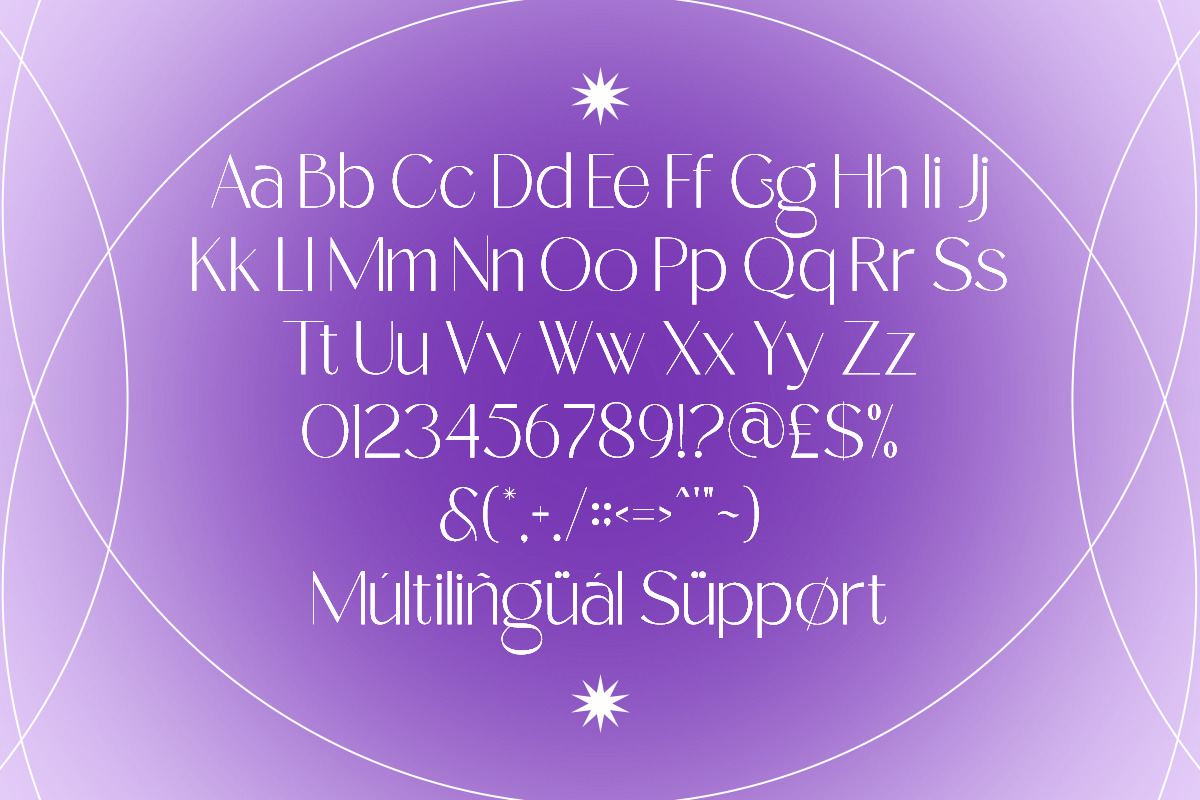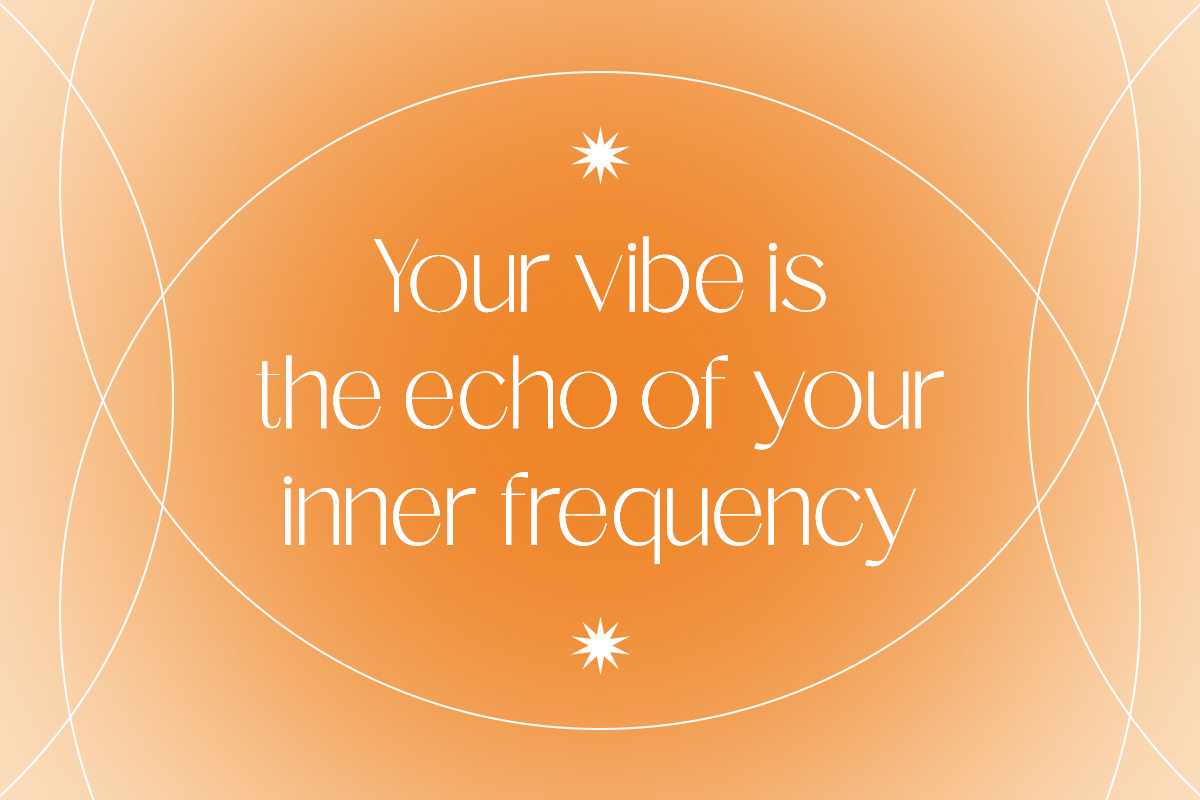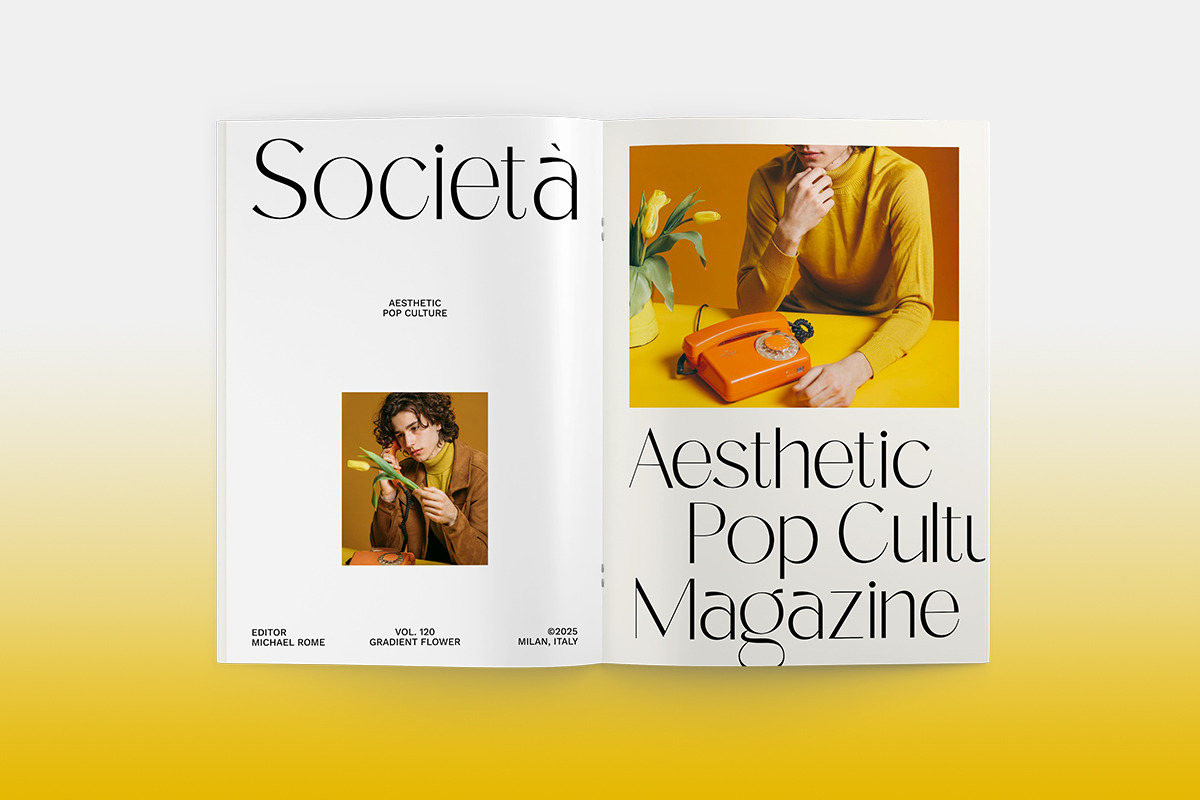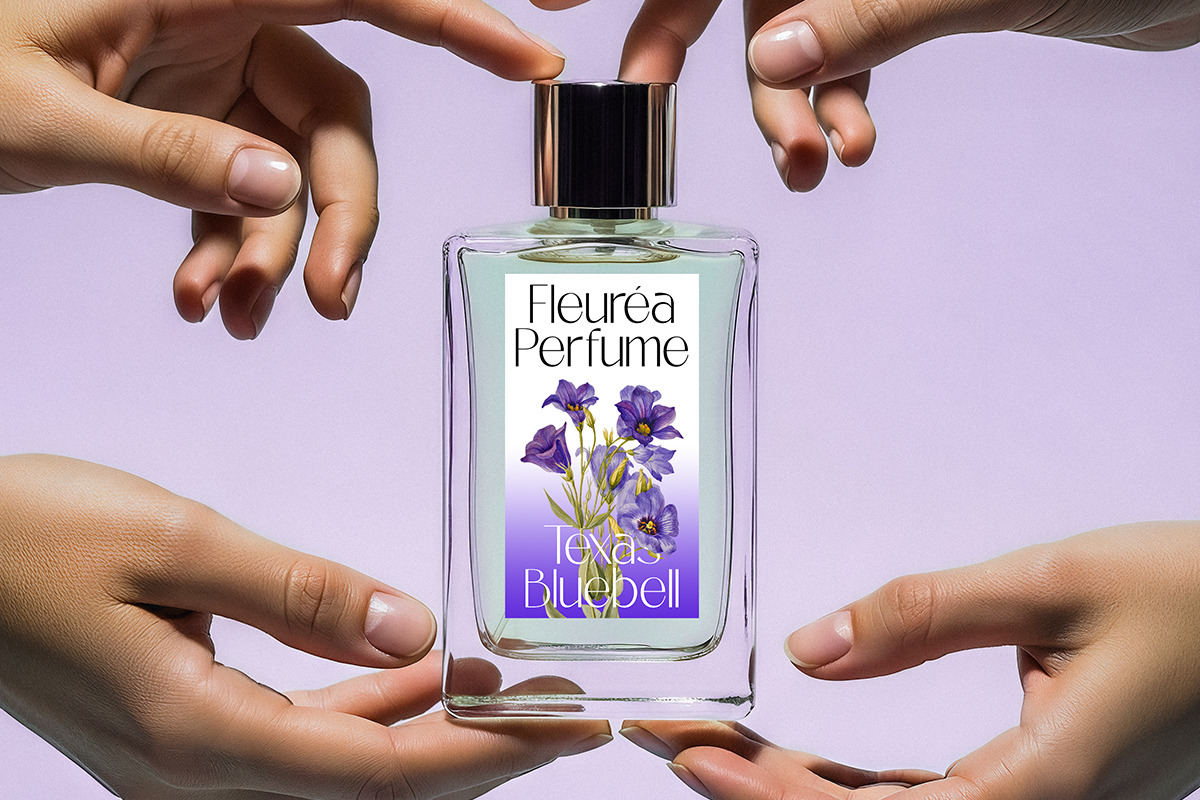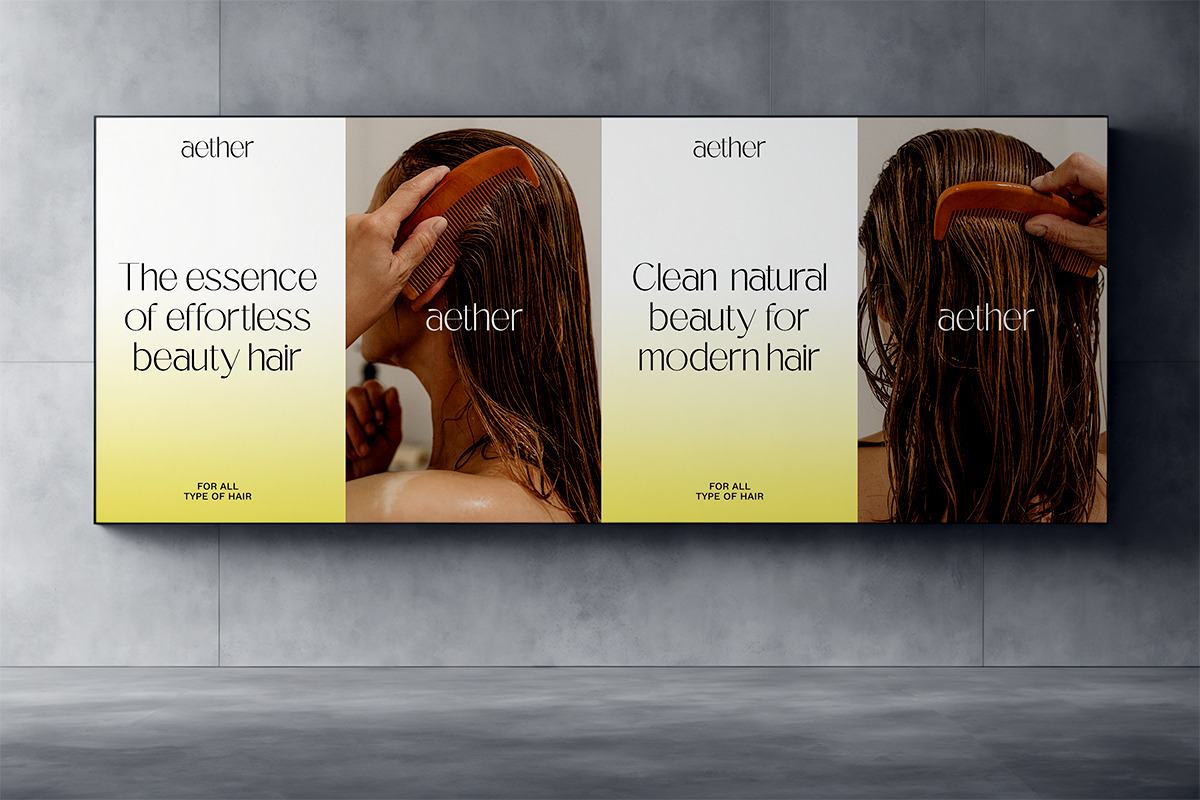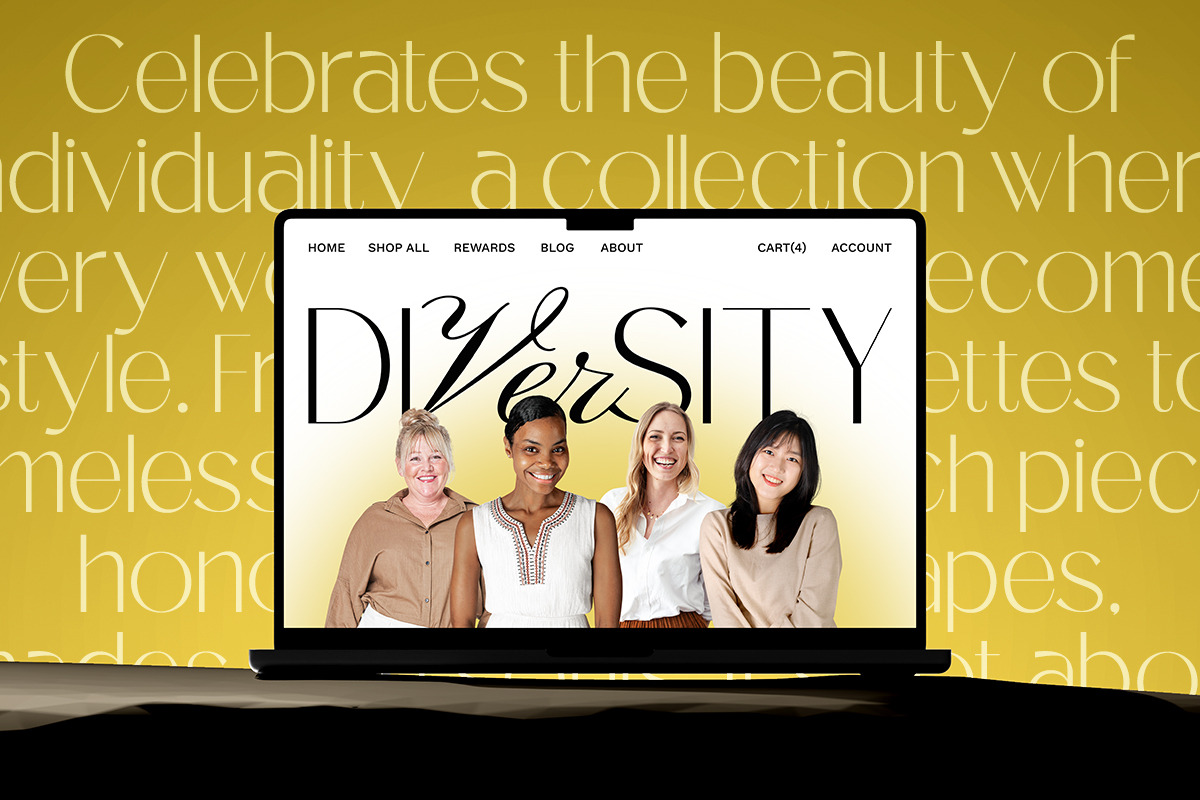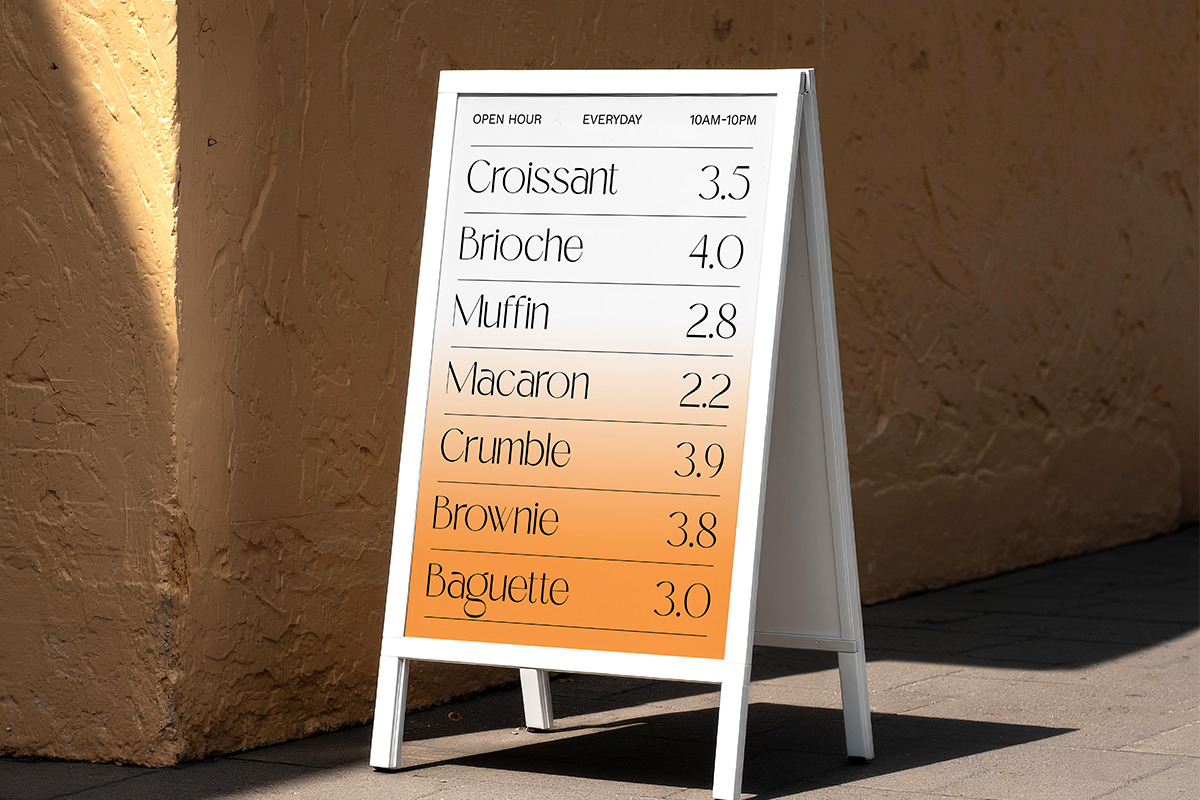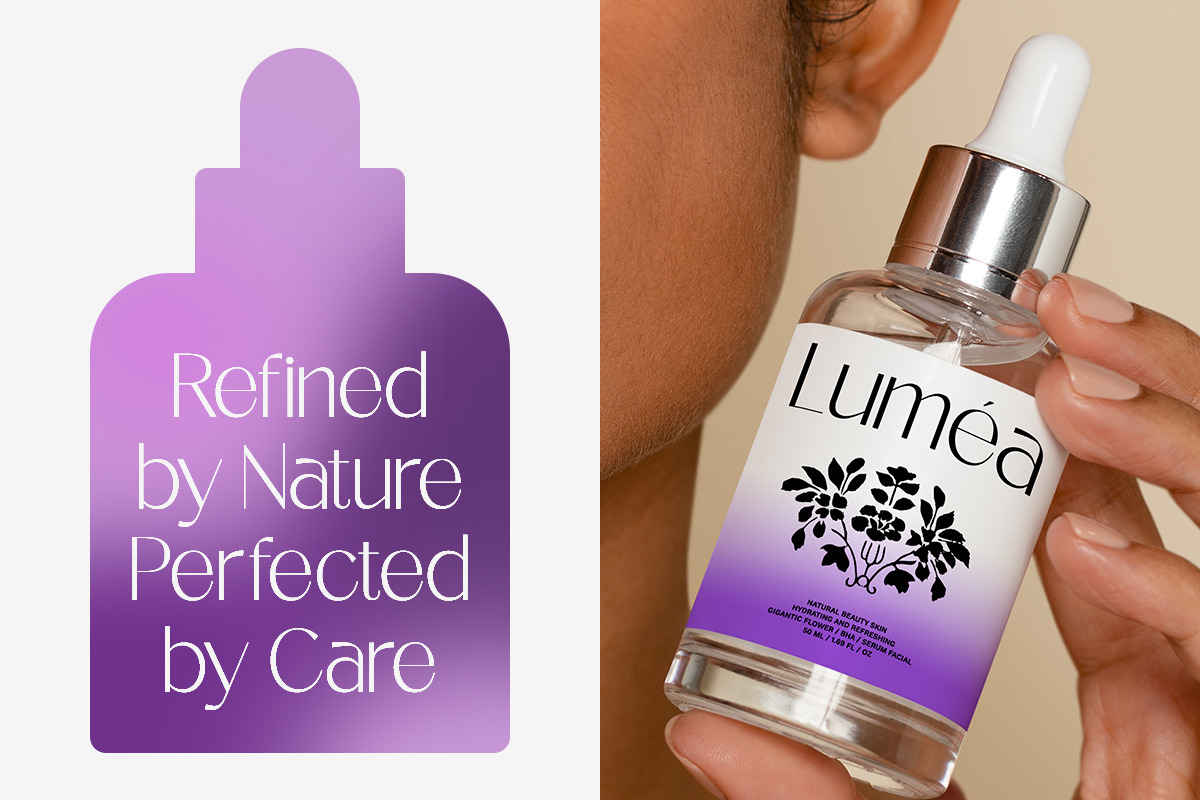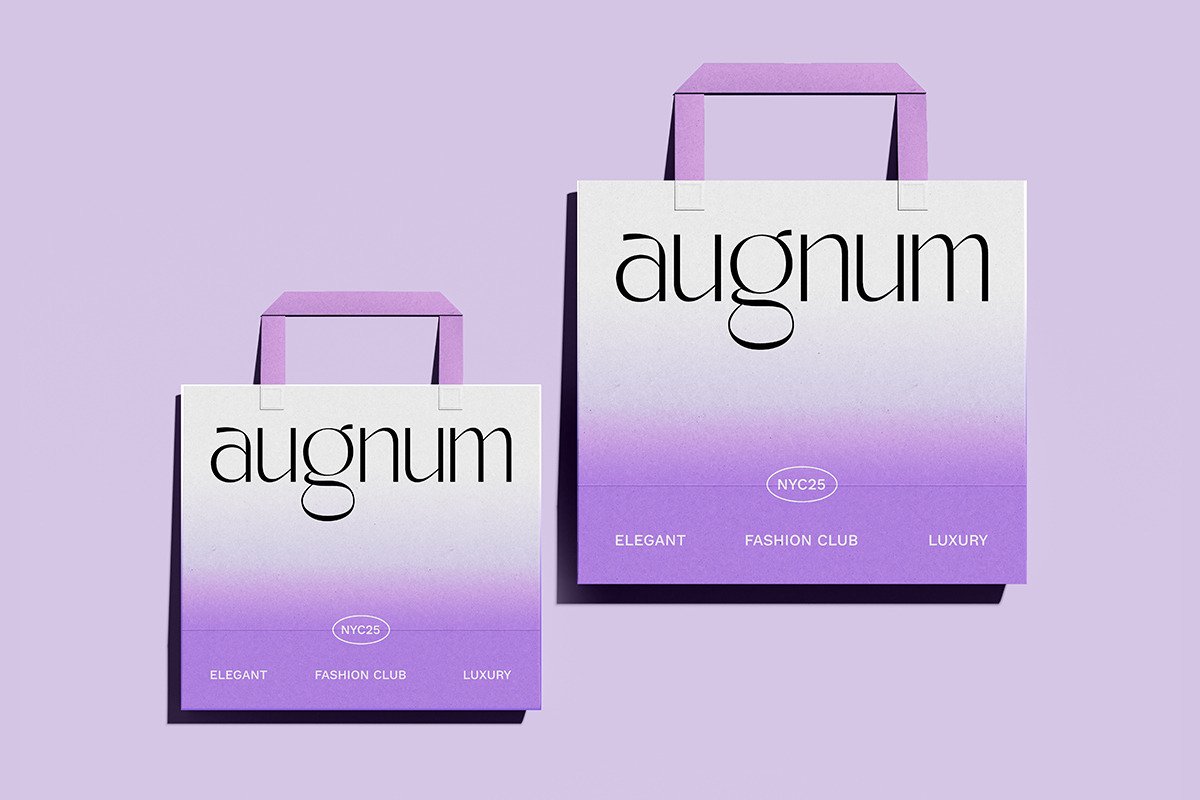
Elora Grace – Elegant Modern Serif
Elora Grace is an elegant modern serif font designed for clean, stylish, and contemporary visual design. With its graceful proportions, minimal curves, and refined letterforms, this typeface delivers a sophisticated look perfect for branding, editorial layouts, fashion design, logos, and premium advertising.
Built for versatility and clarity, Elora Grace works beautifully in headlines, logotypes, magazine titles, social media content, and packaging. Its balanced structure and modern aesthetic make every design feel polished, professional, and timeless.
Whether you're creating a fashion brand, luxury identity, editorial layout, or minimalist logo — Elora Grace brings effortless elegance to your typography.
- Modern sans serif typeface
- Clean and elegant letterforms
- Numerals and punctuation
- Brand identity
- Fashion branding
- Editorial design
- Magazine headlines
- Logo design
- Packaging
- Social media content
- Advertising
- Minimalist design
Why Choose Elora Grace?
If you need a modern sans serif font that feels elegant, clean, and premium, Elora Grace is the perfect choice. Its refined shapes and contemporary style give your design a fresh, high-end appearance that stands out instantly.